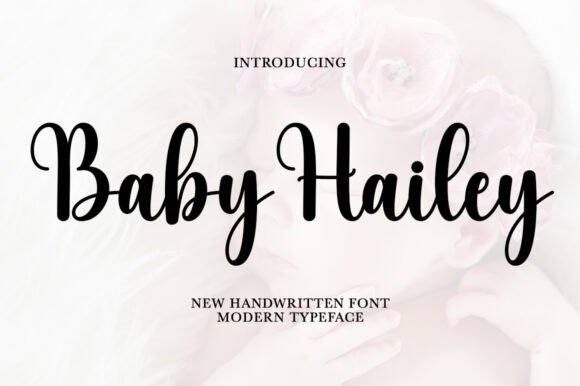
Have you ever been inspired by a handwritten note or a beautifully crafted invitation? I know I have! There’s something special about the imperfections and character of a handwritten script that just can’t be replicated by a computer font. But, as a designer, we all know that finding the perfect script font can be a challenge.
Enter the Baby Hailey Font, a modern calligraphy design that’s perfect for any creative project. With its casual and beautiful swashes, this font is a must-have for logos, product packaging, wedding invitations, and so much more. As a designer, you’ll love the flexibility and versatility of Baby Hailey Font, and with its PUA Unicode encoding, you’ll have full access to all the additional characters you need to bring your designs to life.
Baby Hailey Font Key Features
- Unique Characteristics: This script font features a playful, cursive design with rounded edges and a whimsical feel, perfect for creating a childlike or vintage aesthetic.
- Font Style: Script, Cursive
Baby Hailey Font Review
I recently had the chance to work with the Baby Hailey Font, and I have mixed feelings about it.
- The font has a unique, handwritten feel that can add a personal touch to various designs.
- It’s suitable for titles and headings, where you want to create a sense of playfulness and whimsy.
- The font includes a range of weights, making it easy to match the tone of your design.
- The font is well-suited for projects with a feminine or vintage aesthetic.
- The font may be too ornate for some designs, potentially overwhelming the content.
- The font doesn’t have a clear hierarchy, which can make it difficult to use for body text.
- The font’s character set is limited, which may cause issues with special characters or accents.
While the Baby Hailey Font has its strengths, its limitations may make it challenging to use in certain situations. However, for projects that require a unique, handwritten feel, this font could be a great choice. It’s essential to carefully consider the design requirements and the font’s capabilities before making a decision.
“Baby Hailey Font” is a playful, cursive font that is perfect for:
- Baby shower invitations and decorations.
- Children’s birthday party invitations and decorations.
- Personalized gifts and stationery.
The Baby Hailey Font is a popular font known for its playful, handwritten style. However, there are several alternatives available that offer similar or unique characteristics. Here are a few options for designers.
The Great Vibes Font is a modern, handwritten font with a casual and friendly feel. It is suitable for use in headings, titles, and other design elements where a playful, yet sophisticated look is desired. Compared to Baby Hailey Font, Great Vibes Font has a more polished and refined appearance, making it a great choice for designers who want a more professional look.
The Carolyna Pro Font is a modern, script font with a elegant and sophisticated feel. It is suitable for use in titles, headings, and other design elements where a luxurious and high-end look is desired. Compared to Baby Hailey Font, Carolyna Pro Font has a more refined and polished appearance, making it a great choice for designers who want a more premium look.
The Alex Brush Font is a modern, script font with a elegant and refined feel. It is suitable for use in titles, headings, and other design elements where a sophisticated and luxurious look is desired. Compared to Baby Hailey Font, Alex Brush Font has a more classic and timeless appearance, making it a great choice for designers who want a more traditional look.
Literata Font
The Literata Font is a modern, script font with a elegant and sophisticated feel. It is suitable for use in titles, headings, and other design elements where a luxurious and high-end look is desired. Compared to Baby Hailey Font, Literata Font has a more refined and polished appearance, making it a great choice for designers who want a more